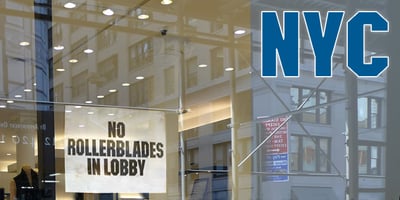
NYC Font Family was designed by published by K-Type. NYC contains 4 styles and family package options. Homage to our favorite city, an English take on American brash. Chunky college style font with a nifty lowercase.